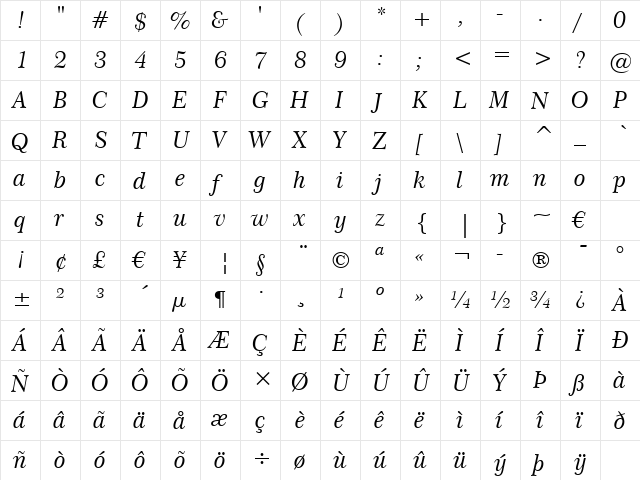
Century751 BT Italic Font Preview
Century751 BT Italic
Design Context for Century751 BT Typeface
Century751 BT takes a measured approach to typography — its balanced proportions and neutral character make it a reliable workhorse for both digital and print work. The slanted form adds forward momentum and visual energy.